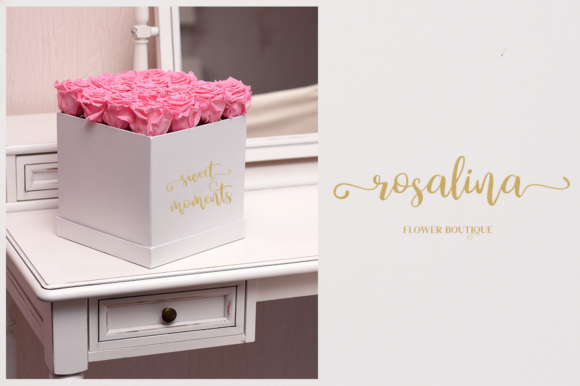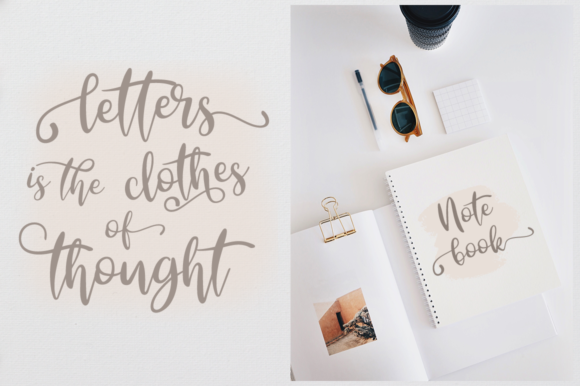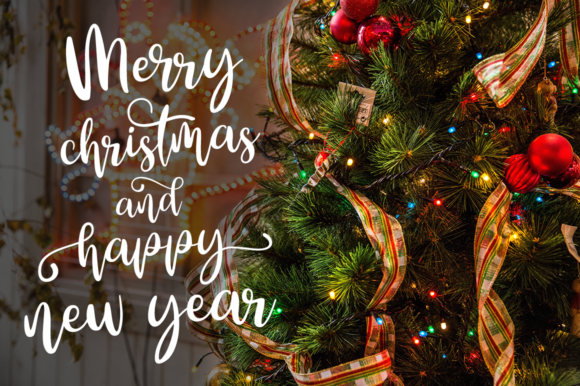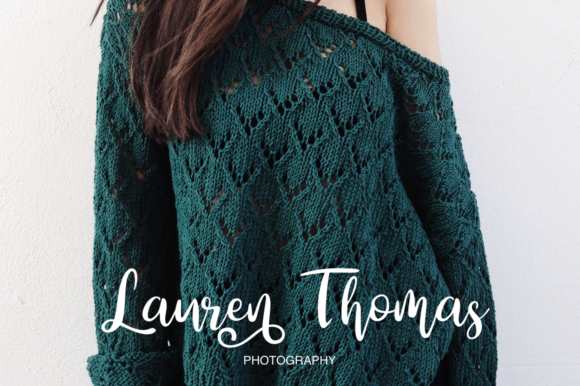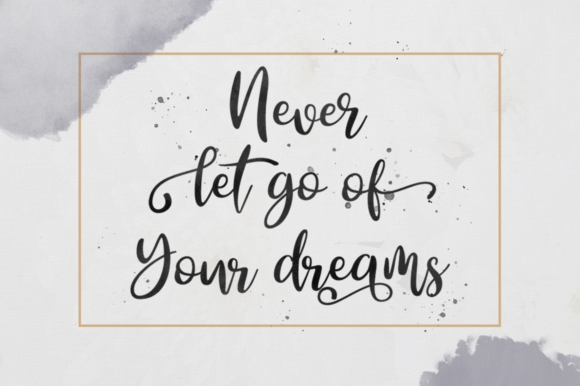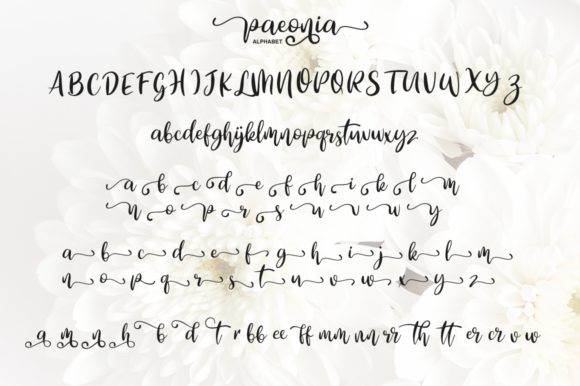
Paeonia Font
About Paeonia Font
The Paeonia is a fresh handmade calligraphy script with an elegant style. It’s ideal for branding and decorating your projects!